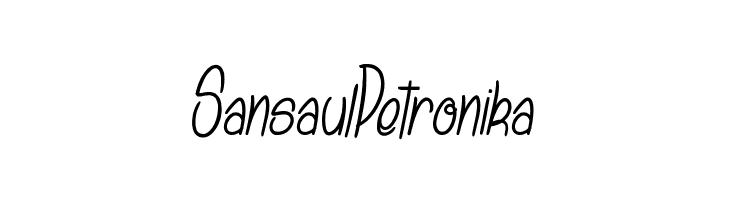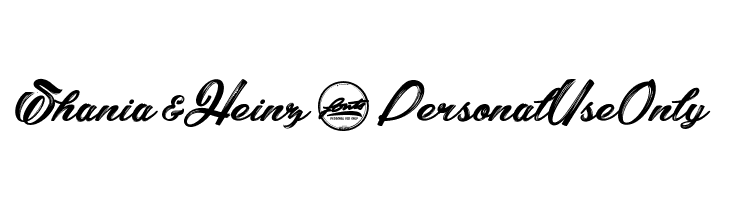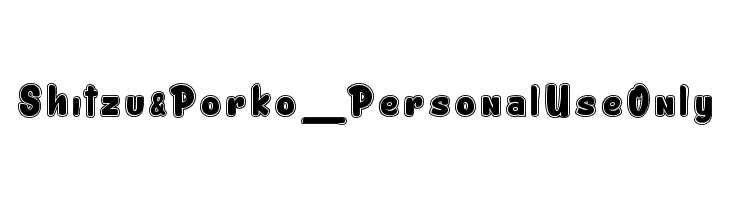
A playful, handwritten font with elongated, slanted letterforms and consistent stroke weight.
A bold, dynamic script font with elegant curves and flourishes.
A bold, playful font with thick, rounded edges and a strong outline.
A bold, rounded font with a playful and chunky style.
An ornate and decorative font with intricate flourishes and embellishments.
A bold, energetic, hand-drawn style with a playful and dynamic appearance.
A dynamic, brush-style font with an energetic, handwritten feel.
A playful, bold font with rounded, thick strokes and a friendly appearance.
A bold, playful font with rounded, outlined characters.
A bold, cursive font with elegant flourishes and high contrast.